2 Google Fonts Similar to Acumin Pro
Acumin Pro is a sans-serif font that works great on all display sizes. It is balanced and solid. It works best for clean, modern design.
For these reasons it has become a very popular font online.
After searching throughout the whole Google Font library, I was able to find two fonts that would make for a good alternative.
So let's jump into it!
What Google Fonts are Similar to Acumin Pro?
The best fonts that are the most similar to Acumin Pro available in the Google Fonts library are:
- Noto Sans
- Roboto
Both of these would make for a good alternative for Acumin Pro.
Below, I cover what they have in common and some of their differences.
Noto Sans
Notos Sans is a sans-serif font designed by Google. It was designed with the intent of giving a clean looking font for all languages to use across the web.
In my opinion, it is the most similar to Acumin Pro out of the whole library. It only has some minor differences that you can pick up on with a close inspection.
For example, you will notice a small differences in the lowercase "c" and in the uppercase you will notice a difference with the "I" and "J".
Otherwise it would make for a very good alternative.
I made a few images for you to compare for yourself.
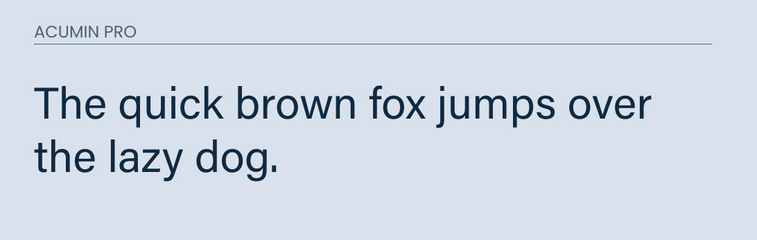
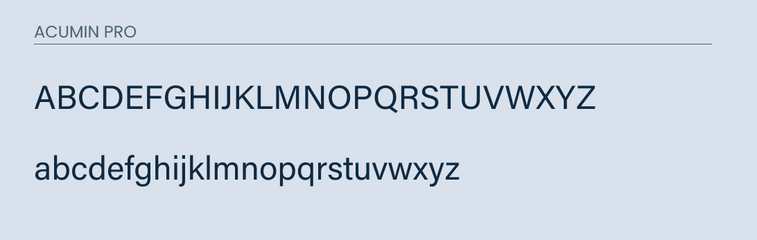
Roboto
Robot is another font that is very similar to Acumin Pro. They are nearly identical in the lowercase.
The differences are find in the uppercase. Although minor, you will find differences in the uppercase "J", "G", and "Q".
With these few differences, it also would be a good alternative if Noto Sans wouldn't work as an option for you.
Take a look below.
Conclusion
Most of the time, it is very difficult to find a font that looks very similar to a premium font. Luckily, I was able to find two that are very similar both from the Google Font library.